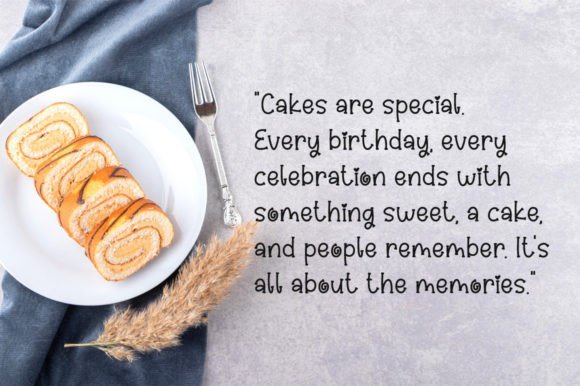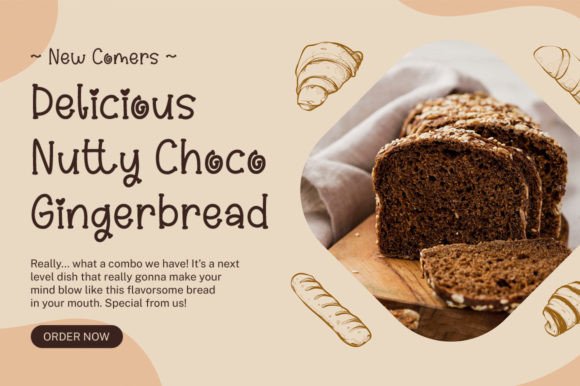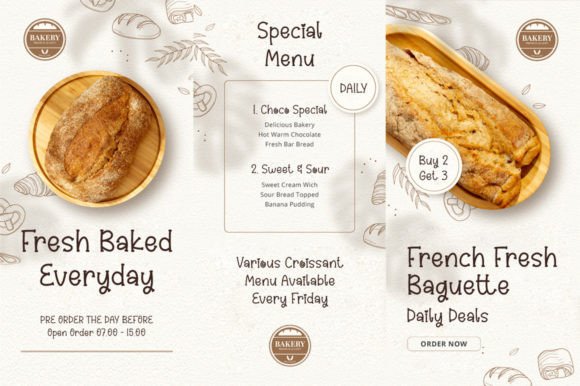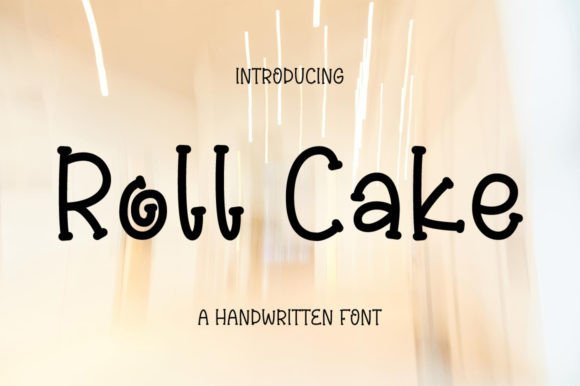
Introduction to Roll Cake Font
Roll Cake is a fun and smart-looking handwritten display font.
It looks ravishing on invitations, thank you cards, quotes, greeting cards, logos, business cards, and every other design which needs a customized touch .
Key Features of Roll Cake Font
Why Choose Roll Cake Font?
Roll Cake Font offers exceptional quality and versatility, making it a valuable addition to your design toolkit. Whether you’re creating for personal projects or commercial use, Roll Cake Font delivers professional results.